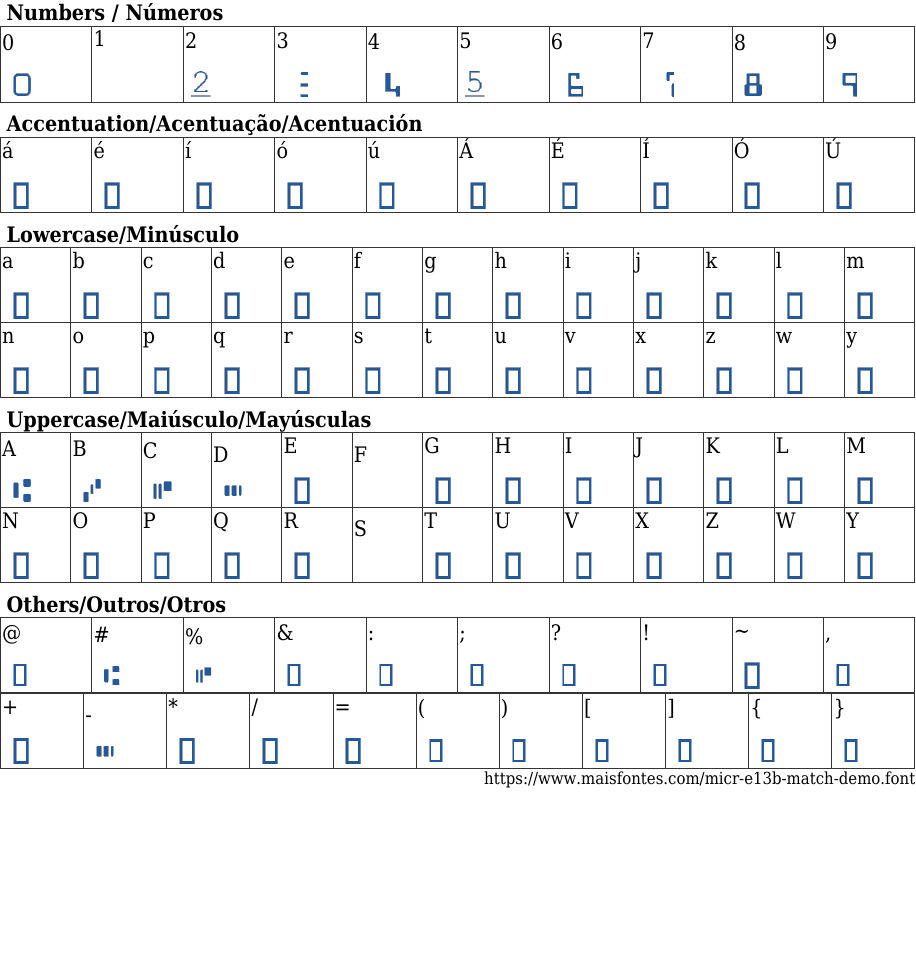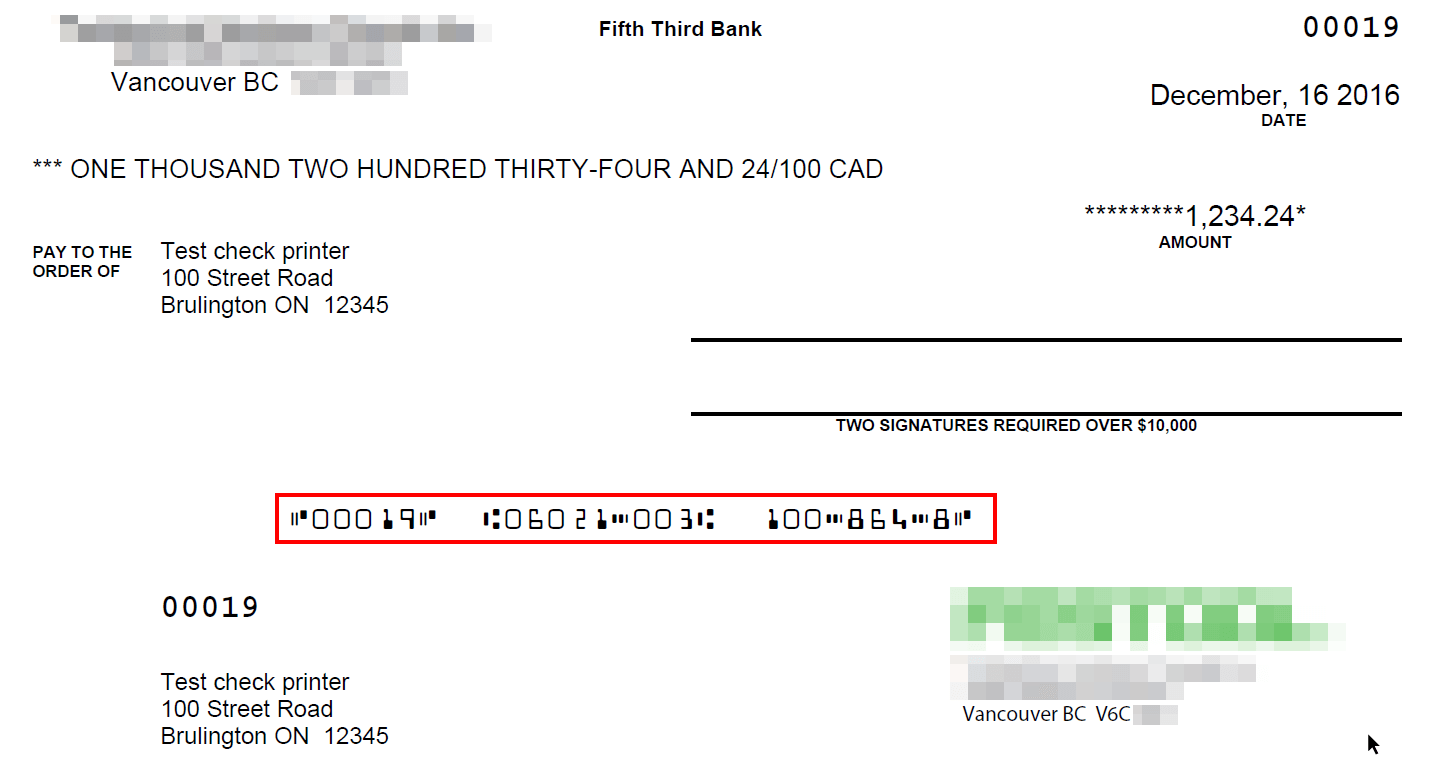
E13B Font For Paint . Work with various barcodes and print cheques on a laser printer using magnetic ink. Encode special digits found at the bottom of. E13b is one of the two major magnetic ink character recognition (micr) fonts used in the printing of checks and other payment documents. E13b is popular in north america and. Download free for commercial use. These download packages contain evaluation versions of the micr e13b and cmc7 magnetic encoding fonts used to print the magnetic. Take the following steps to install the micr font: The font package includes truetype (ttf), opentype (otf),. Download bankenscribe micr demo font (e13b) for windows 2000 / xp / vista / 7 / 8 / 10.
Take the following steps to install the micr font: E13b is popular in north america and. E13b is one of the two major magnetic ink character recognition (micr) fonts used in the printing of checks and other payment documents. Encode special digits found at the bottom of. Work with various barcodes and print cheques on a laser printer using magnetic ink. Download bankenscribe micr demo font (e13b) for windows 2000 / xp / vista / 7 / 8 / 10. Download free for commercial use. These download packages contain evaluation versions of the micr e13b and cmc7 magnetic encoding fonts used to print the magnetic. The font package includes truetype (ttf), opentype (otf),.
E13B Font For Paint E13b is popular in north america and. These download packages contain evaluation versions of the micr e13b and cmc7 magnetic encoding fonts used to print the magnetic. The font package includes truetype (ttf), opentype (otf),. E13b is one of the two major magnetic ink character recognition (micr) fonts used in the printing of checks and other payment documents. Encode special digits found at the bottom of. E13b is popular in north america and. Download bankenscribe micr demo font (e13b) for windows 2000 / xp / vista / 7 / 8 / 10. Take the following steps to install the micr font: Work with various barcodes and print cheques on a laser printer using magnetic ink. Download free for commercial use.
How To Use E13B MICR Font For Printing In 7 Easy Steps E13B Font For Paint These download packages contain evaluation versions of the micr e13b and cmc7 magnetic encoding fonts used to print the magnetic. The font package includes truetype (ttf), opentype (otf),. E13b is one of the two major magnetic ink character recognition (micr) fonts used in the printing of checks and other payment documents. E13b is popular in north america and. Encode special. E13B Font For Paint.
How To Use E13B MICR Font Expert 7 Tips E13B Font For Paint These download packages contain evaluation versions of the micr e13b and cmc7 magnetic encoding fonts used to print the magnetic. Download bankenscribe micr demo font (e13b) for windows 2000 / xp / vista / 7 / 8 / 10. Work with various barcodes and print cheques on a laser printer using magnetic ink. The font package includes truetype (ttf), opentype. E13B Font For Paint.
How To Use E13B MICR Font Expert 7 Tips E13B Font For Paint Download free for commercial use. The font package includes truetype (ttf), opentype (otf),. Download bankenscribe micr demo font (e13b) for windows 2000 / xp / vista / 7 / 8 / 10. E13b is one of the two major magnetic ink character recognition (micr) fonts used in the printing of checks and other payment documents. Take the following steps to. E13B Font For Paint.
e13b font E13B Font For Paint These download packages contain evaluation versions of the micr e13b and cmc7 magnetic encoding fonts used to print the magnetic. Encode special digits found at the bottom of. E13b is one of the two major magnetic ink character recognition (micr) fonts used in the printing of checks and other payment documents. Download free for commercial use. Download bankenscribe micr demo. E13B Font For Paint.
e13b font E13B Font For Paint Download free for commercial use. Work with various barcodes and print cheques on a laser printer using magnetic ink. Encode special digits found at the bottom of. Take the following steps to install the micr font: E13b is popular in north america and. The font package includes truetype (ttf), opentype (otf),. These download packages contain evaluation versions of the micr. E13B Font For Paint.
micr font for checks E13B Font For Paint The font package includes truetype (ttf), opentype (otf),. Work with various barcodes and print cheques on a laser printer using magnetic ink. E13b is popular in north america and. Download bankenscribe micr demo font (e13b) for windows 2000 / xp / vista / 7 / 8 / 10. Encode special digits found at the bottom of. These download packages contain. E13B Font For Paint.
MICR E13B font for check printing Banking Typography E13B Font For Paint Download bankenscribe micr demo font (e13b) for windows 2000 / xp / vista / 7 / 8 / 10. These download packages contain evaluation versions of the micr e13b and cmc7 magnetic encoding fonts used to print the magnetic. The font package includes truetype (ttf), opentype (otf),. E13b is one of the two major magnetic ink character recognition (micr) fonts. E13B Font For Paint.
How To Use E13B MICR Font For Printing In 7 Easy Steps E13B Font For Paint These download packages contain evaluation versions of the micr e13b and cmc7 magnetic encoding fonts used to print the magnetic. Download free for commercial use. Encode special digits found at the bottom of. E13b is one of the two major magnetic ink character recognition (micr) fonts used in the printing of checks and other payment documents. E13b is popular in. E13B Font For Paint.
E13B (font) Digital Check Corp. E13B Font For Paint Download free for commercial use. The font package includes truetype (ttf), opentype (otf),. Encode special digits found at the bottom of. Download bankenscribe micr demo font (e13b) for windows 2000 / xp / vista / 7 / 8 / 10. Work with various barcodes and print cheques on a laser printer using magnetic ink. These download packages contain evaluation versions. E13B Font For Paint.